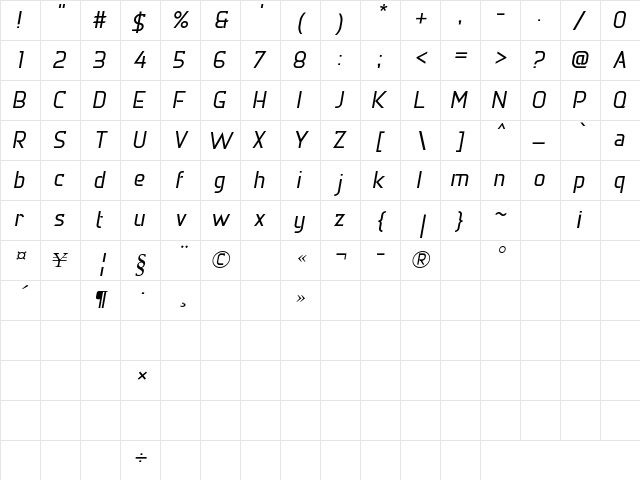
DERNIER Italic
| Designer | Hareesh Seela |
Design Context for DERNIER Typeface
DERNIER takes a measured approach to typography — its balanced proportions and neutral character make it a reliable workhorse for both digital and print work. Its italic angle brings a sense of urgency and motion to the letterforms.
Pro Tip: Try DERNIER for annotation and caption copy alongside an upright companion — the contrast in angle creates a dynamic but ordered typographic system.